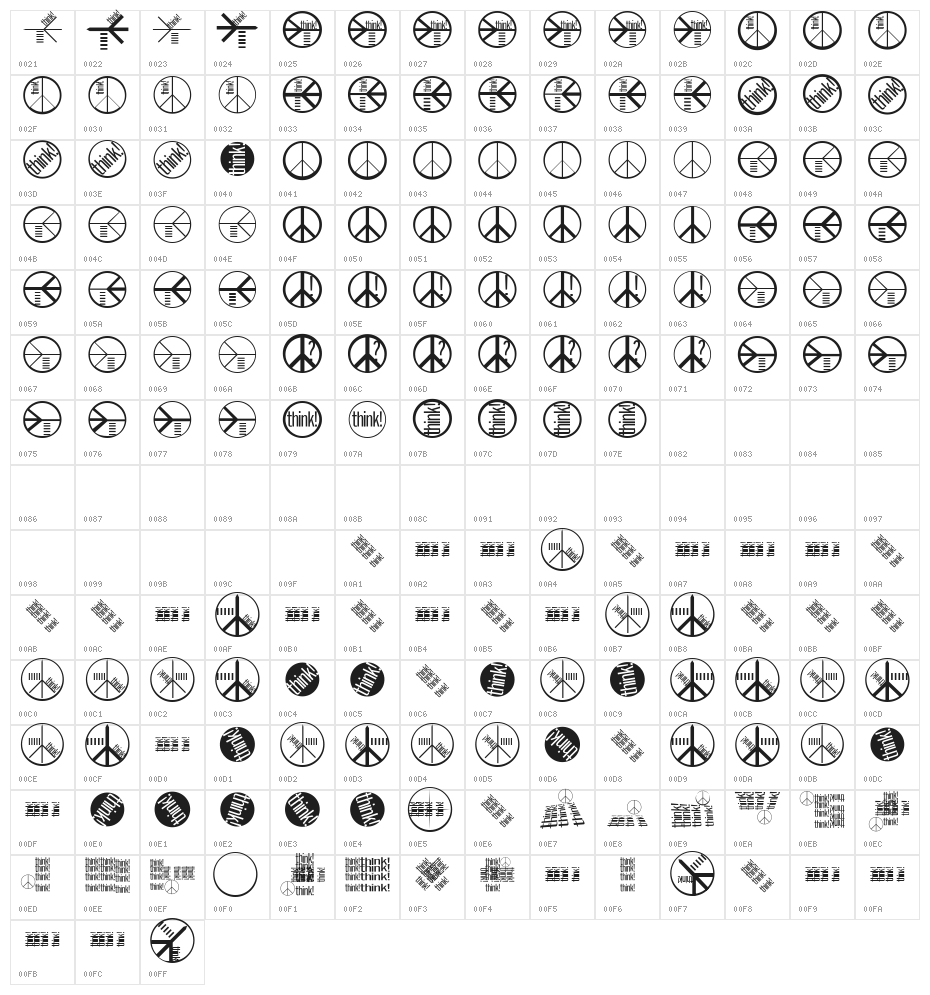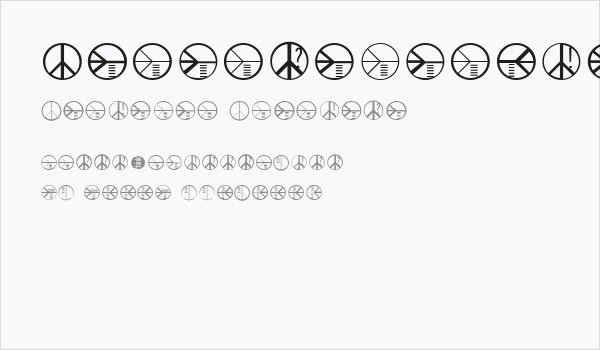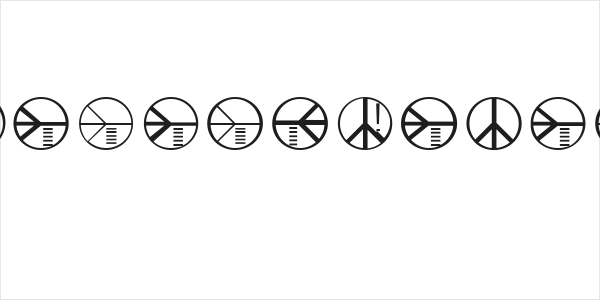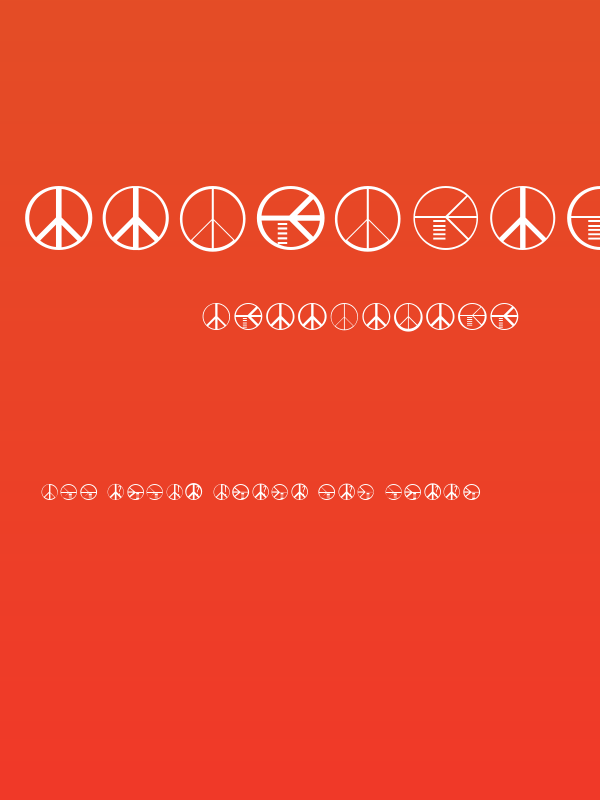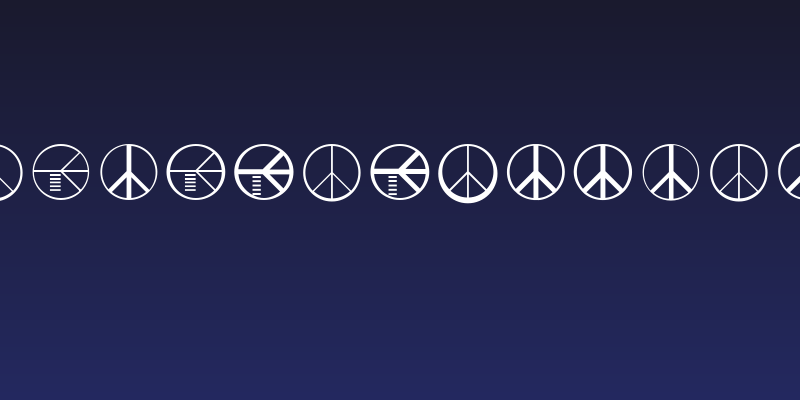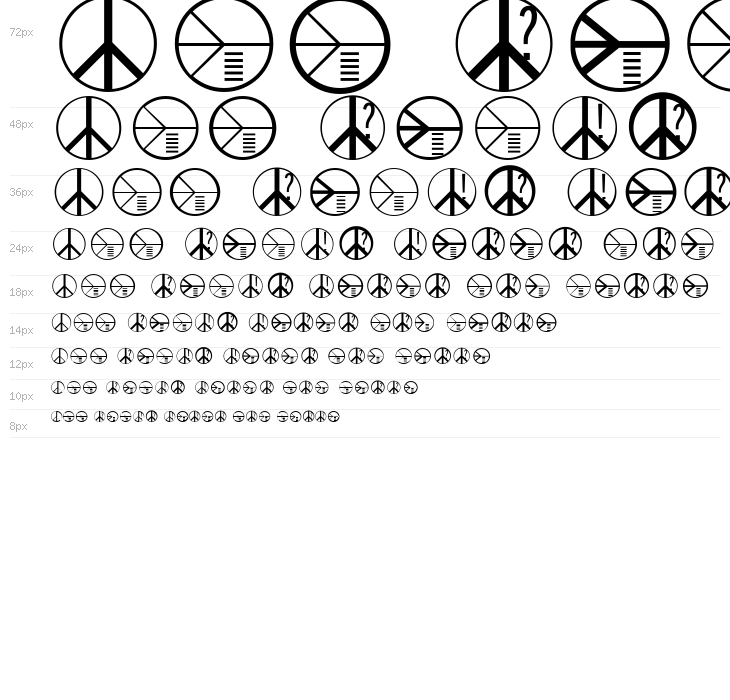
PreventiveWarQuestion Font
PreventiveWarQuestion Description
A decorative display font composed of peace symbols, question marks, and the word 'think!' integrated into circular glyphs. The characters are highly stylized, using iconography rather than traditional letterforms, with consistent line thickness and circular enclosures.
| Overall Style | Conceptual, Decorative, Modern |
| Use Case | Headlines, Posters, Artistic projects |
| Proposed Projects | Posters, protest art, editorial illustrations, conceptual branding, educational materials. |